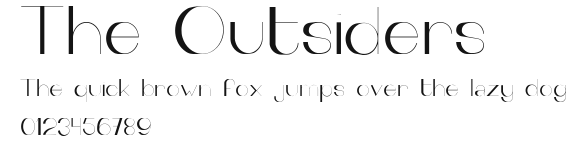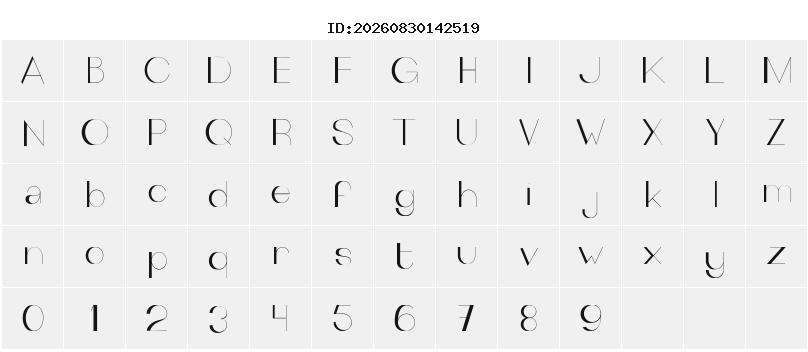
• Font Name: The Outsiders
• Font Style: The Outsiders
• Full Font Name: The Outsiders
• Designer: © Ryann Shaffer
About The Outsiders.ttf
The Outsiders.ttf is a modern, elegant sans-serif font designed for ultimate readability and visual harmony. Perfect for branding, headlines, web design, and print materials.